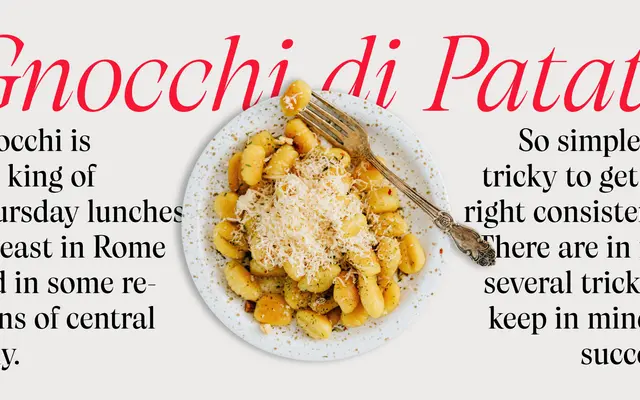
Artusi
A transitional serif by Francesco Canovaro, drawing on the legacy of Italian food writer Pellegrino Artusi across seven weights and two optical sizes.
Designed at Zetafonts and released in 2022, the family spans text and display versions under the Roman and Grande subfamilies, with 28 styles plus two variable fonts covering weight and optical size axes. Lighter weights lean on high contrast and spiky serifs suited to text setting, while heavier cuts carry calligraphic swashes and luscious curves aimed at packaging and logotypes. An extensive OpenType feature set includes swashes, oldstyle figures, discretionary ligatures and multiple stylistic sets, with coverage across 208 languages.
Described explicitly as a transitional serif by the foundry, with high contrast between thicks and thins in lighter weights and calligraphic details in heavier weights; the Grande subfamily adds a distinct display optical size.